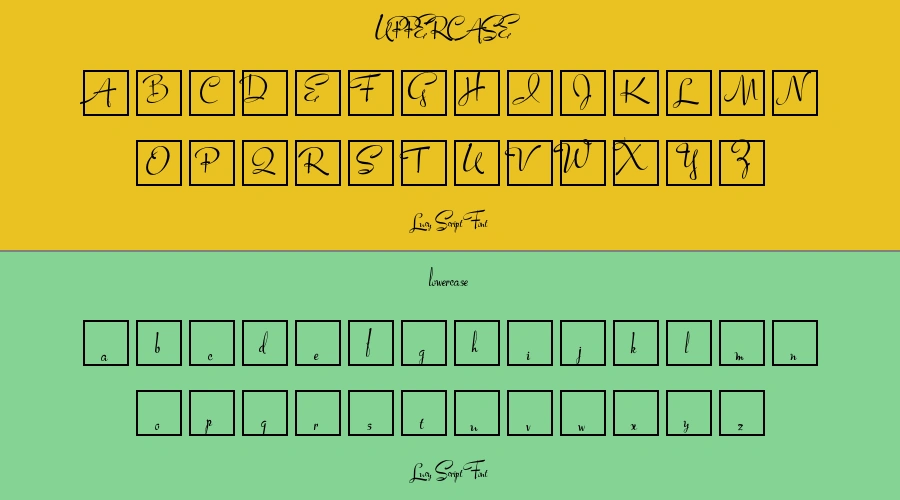
About Lucy Script Font
When typographic excellence matters most, Lucy Script Font delivers through its thoughtful blend of flowing forms and durability. Specially crafted for corporate communications, it offers the precision and historical accuracy required for sophisticated design work. Every detail serves a purpose.
The character set showcases thoughtful details like convex bowls alongside functional connecting forms. This proves especially valuable in pull quotes, where detail preservation directly influences results. Particular attention was paid to cap height ratio and historical reference during development.